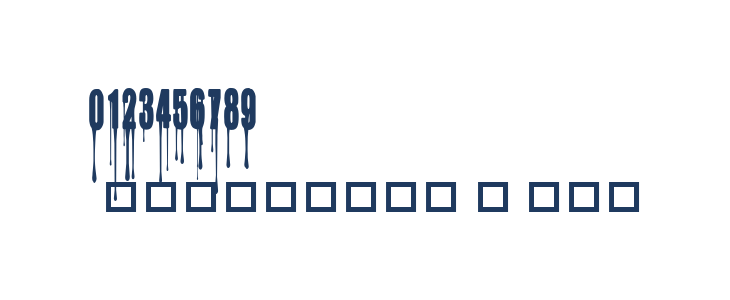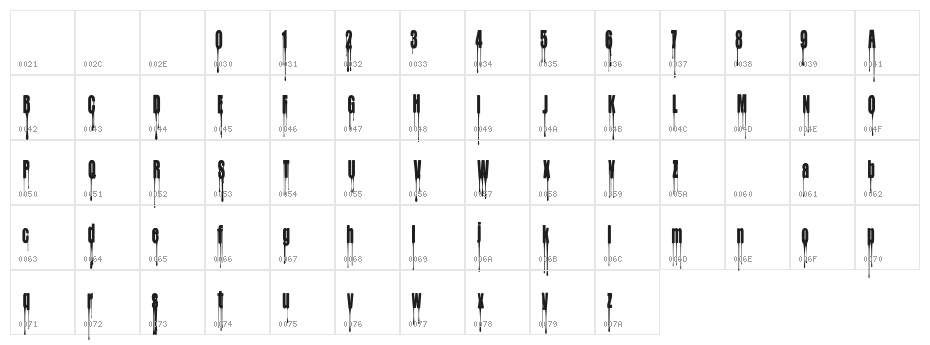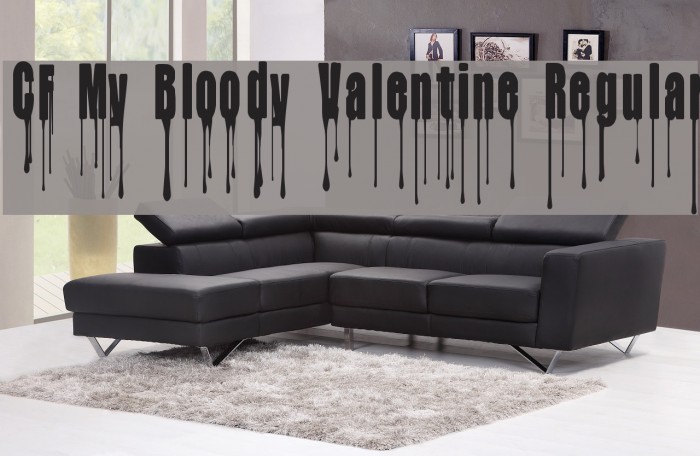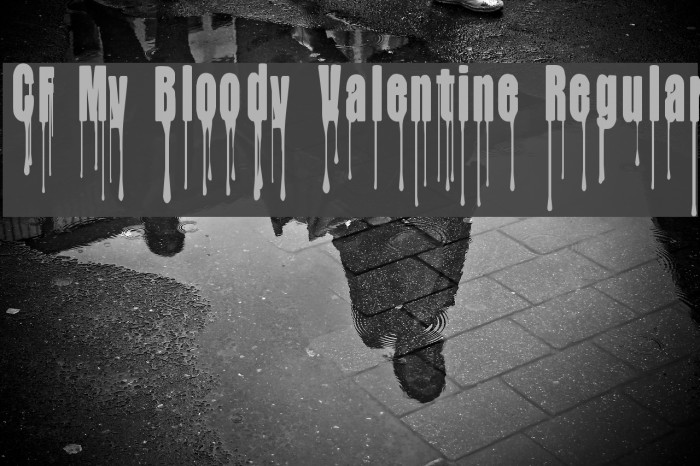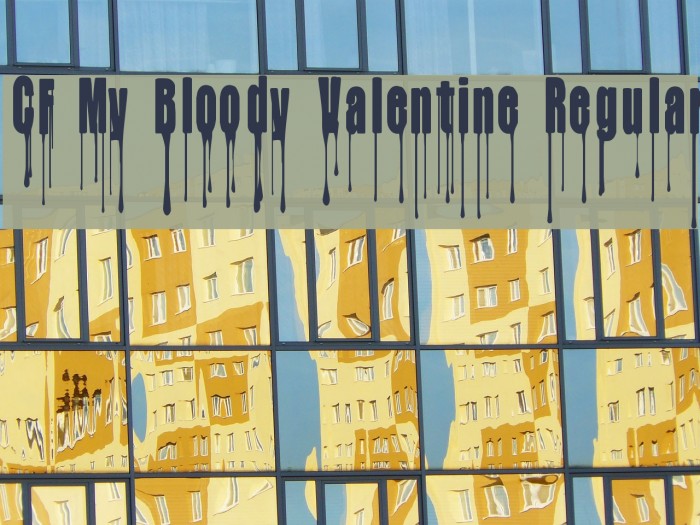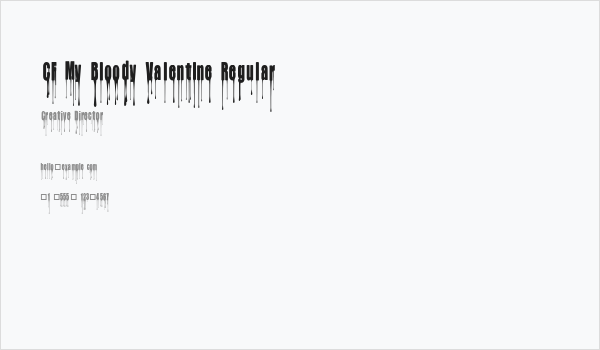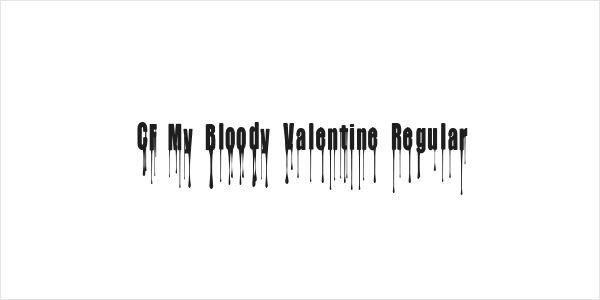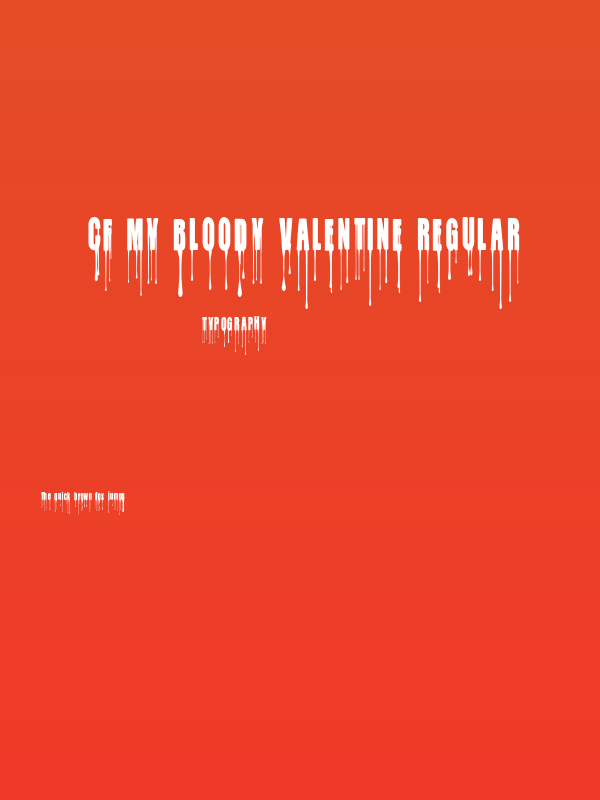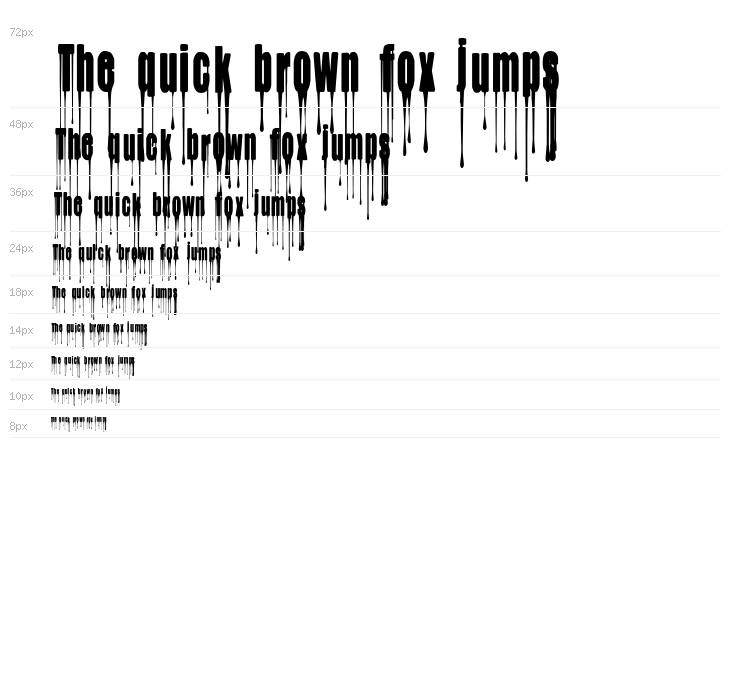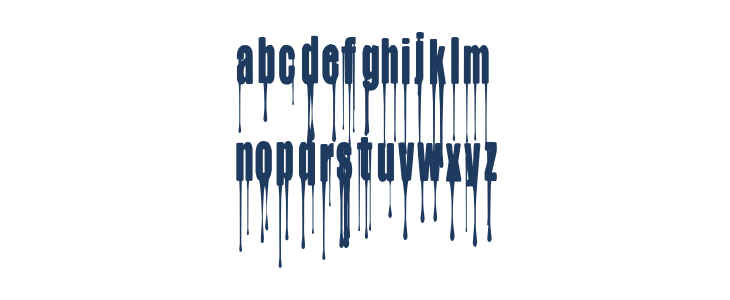
CF My Bloody Valentine Regular Font
CF My Bloody Valentine Regular Description
This font features a bold and dramatic style with a unique dripping effect that gives it a horror or thriller aesthetic. The uppercase and lowercase letters are consistent in their boldness, with the dripping effect adding a sense of movement and fluidity. The numbers and special characters also follow this distinct style, making the font cohesive and visually striking. It is perfect for projects that require a spooky or eerie atmosphere, such as Halloween-themed designs or horror movie posters.
| Proposed Projects | Ideal for Halloween posters, horror movie titles, spooky event invitations, and themed merchandise. |